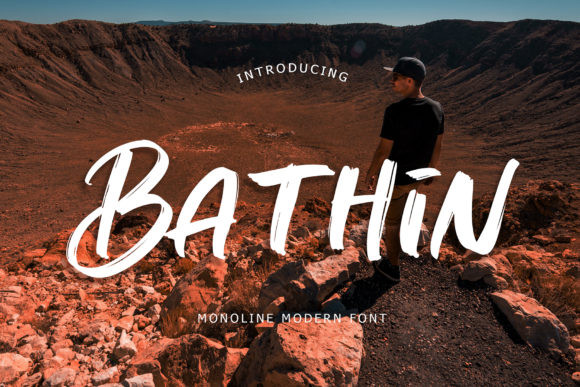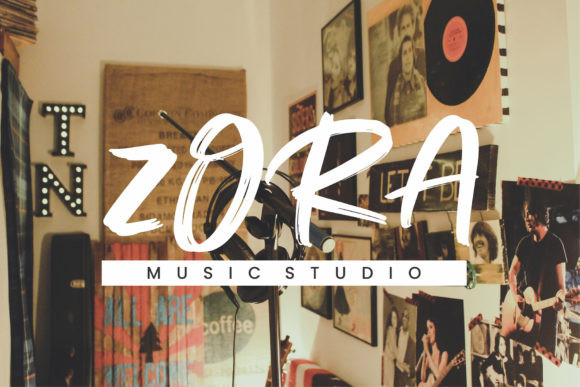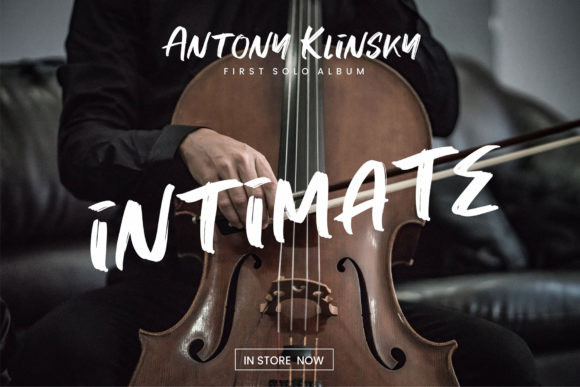
Bathin Font
Bathin is a display font that has an awesome brush style that catches your attention! This font perfect for branding projects, logo, T-shirt designs, social media posts, advertisements, product packaging, product designs, label, watermark, invitations, stationery, and any other projects.